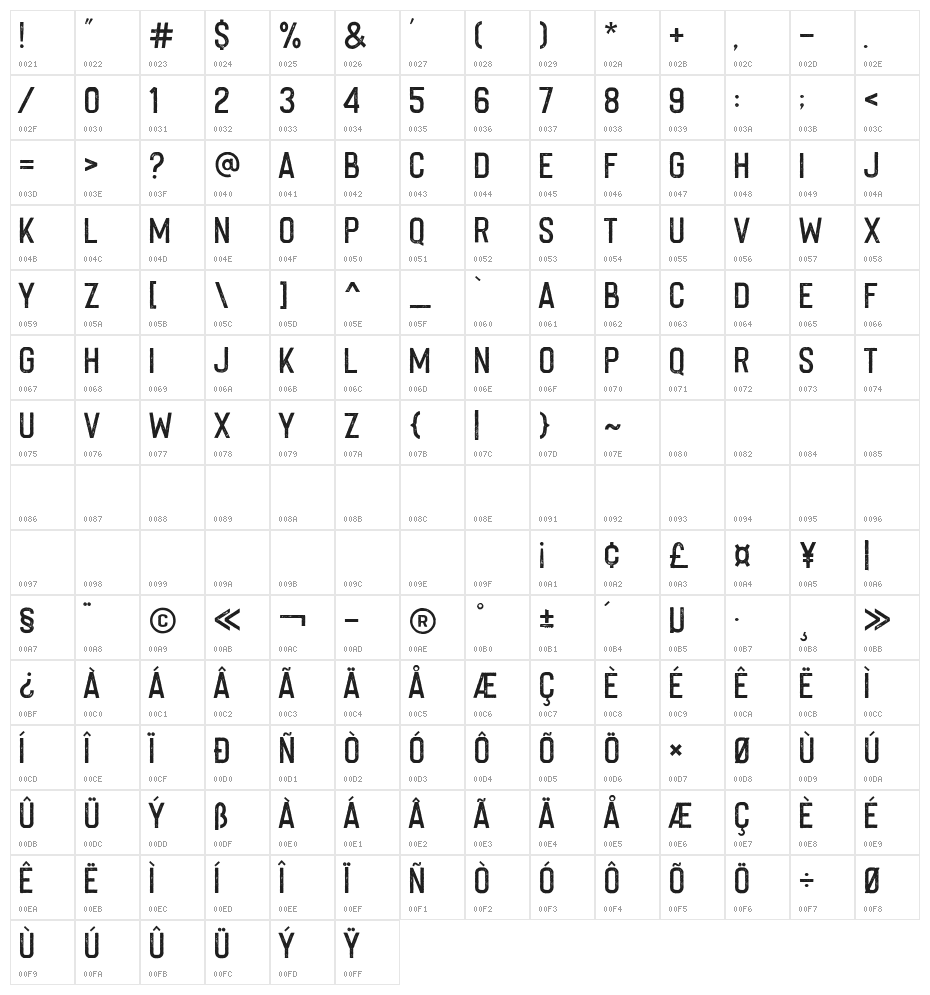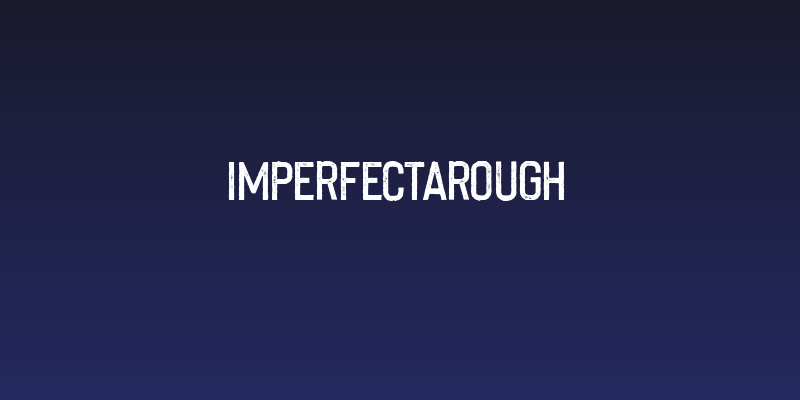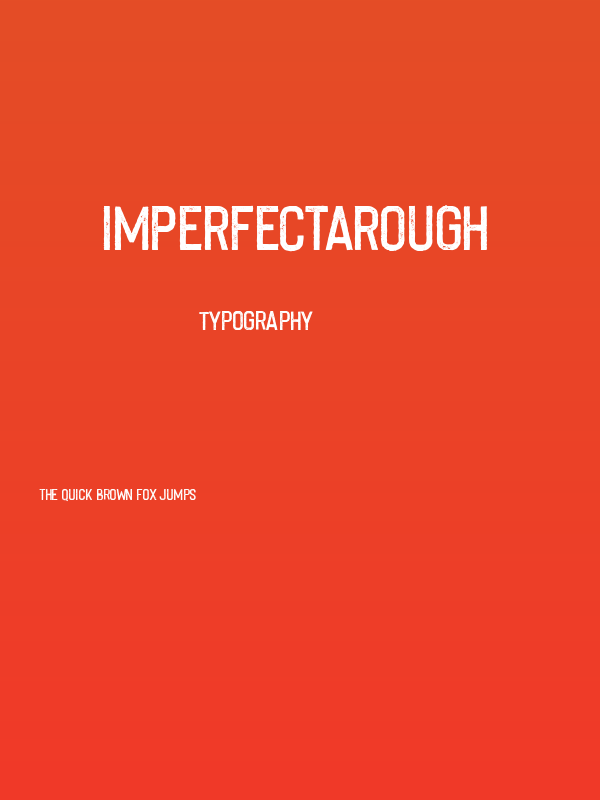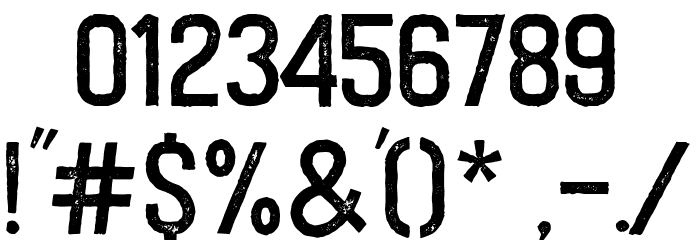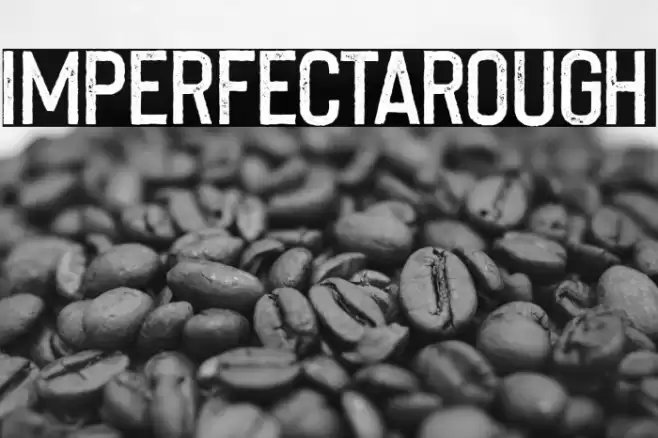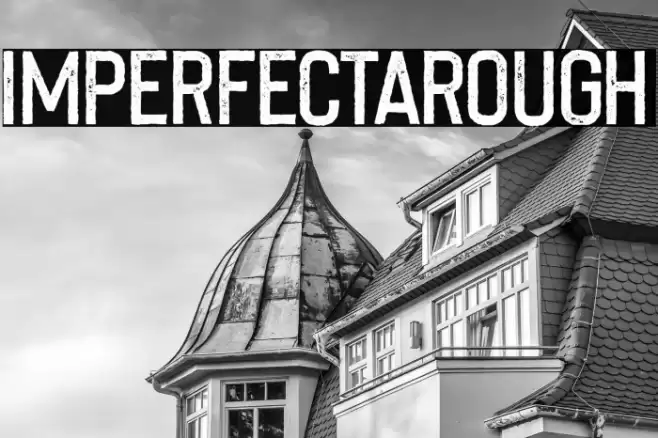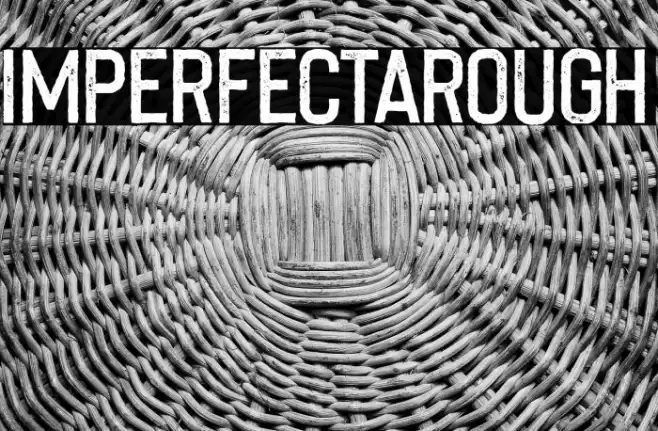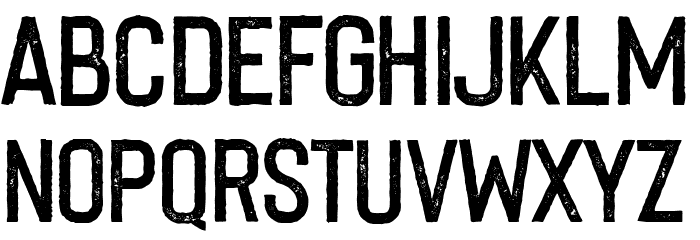
ImperfectaRough Font
ImperfectaRough Description
This font features a rugged, distressed appearance, giving it a unique, textured look that mimics the effect of weathered or worn-out print. The characters are bold and impactful, with a slightly uneven texture that adds to its charm and authenticity. It maintains a consistent width across all characters, providing a uniform and balanced appearance. The font's rough edges and imperfections make it ideal for projects that require a vintage or industrial feel. Its boldness ensures readability while the distressed style adds character and depth.
| Proposed Projects | Ideal for vintage posters, industrial-themed designs, branding for rustic products, or any project needing a bold, textured aesthetic. |